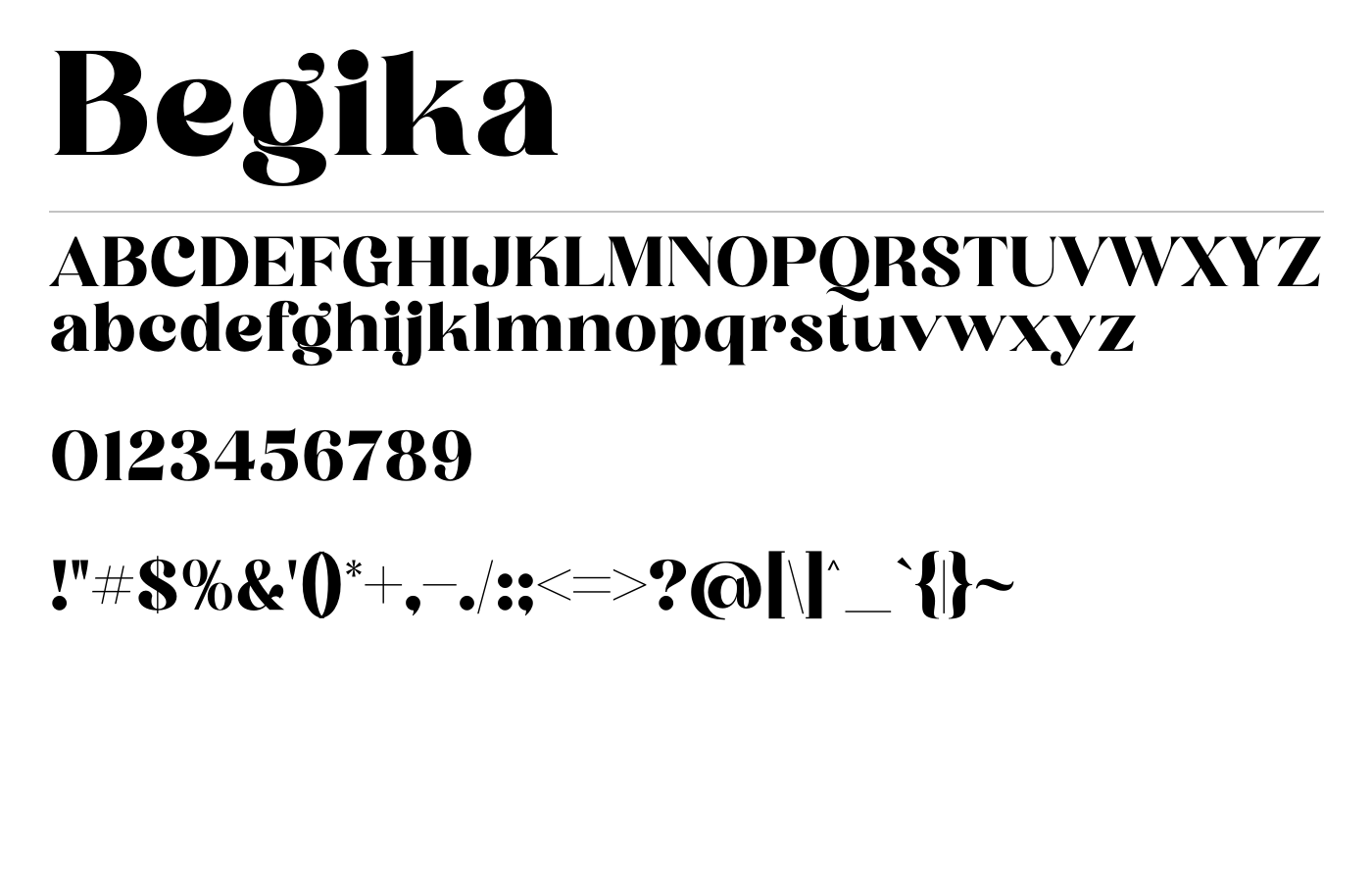
Begika is a bold, modern serif font with high contrast between thick and thin strokes, featuring elegant, bracketed serifs and distinctive letterforms that add a stylish flair. Its sturdy yet refined appearance makes it ideal for luxury branding, editorial headlines, and sophisticated packaging where a strong, confident statement is needed. This font combines classic serif charm with contemporary design, making it perfect for projects that seek a blend of tradition and modernity.
Begika Font